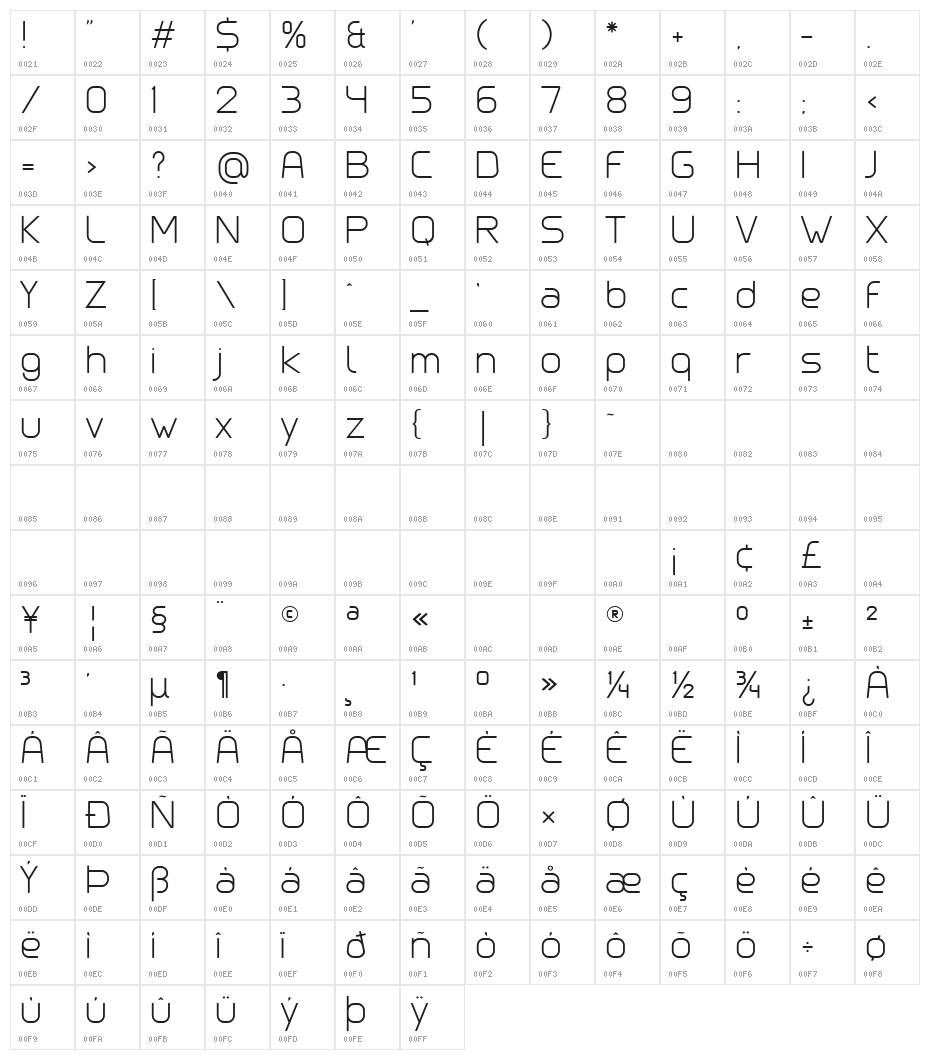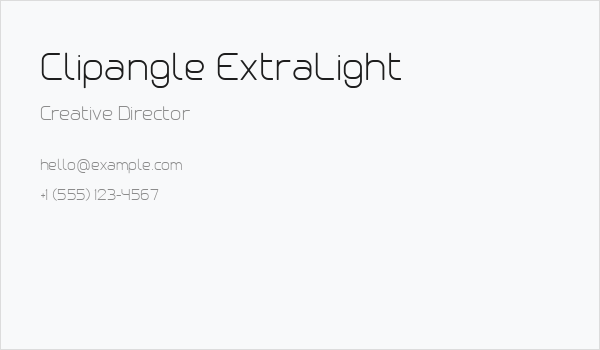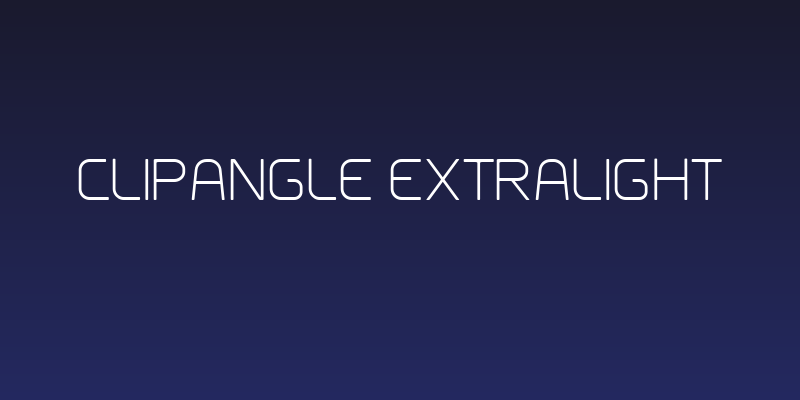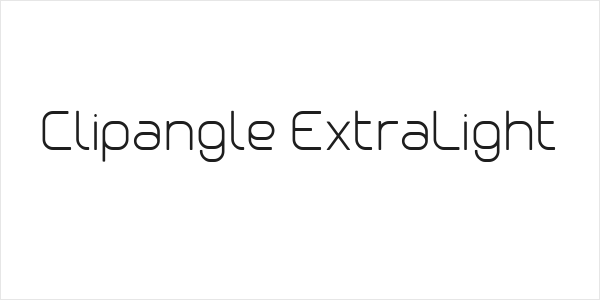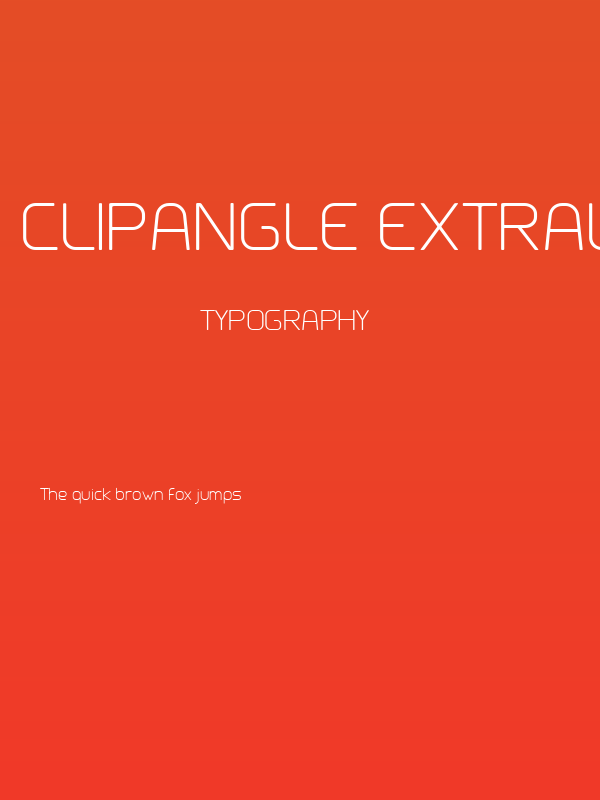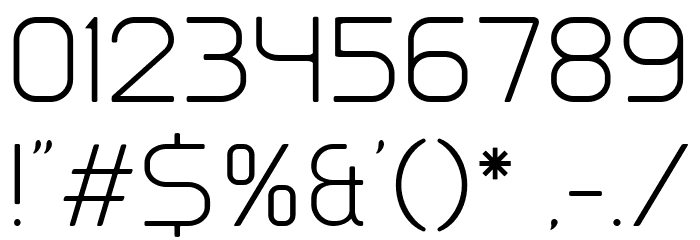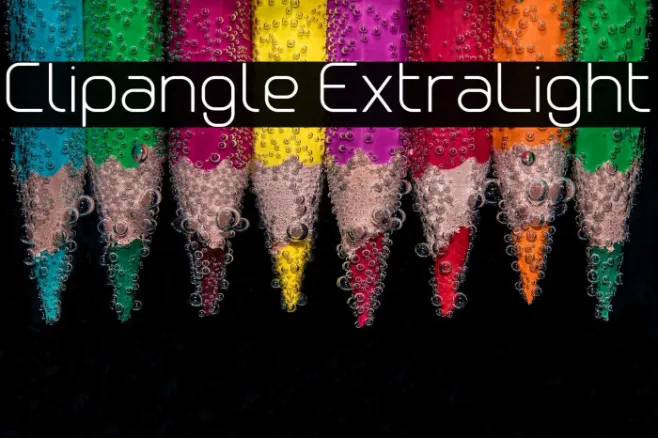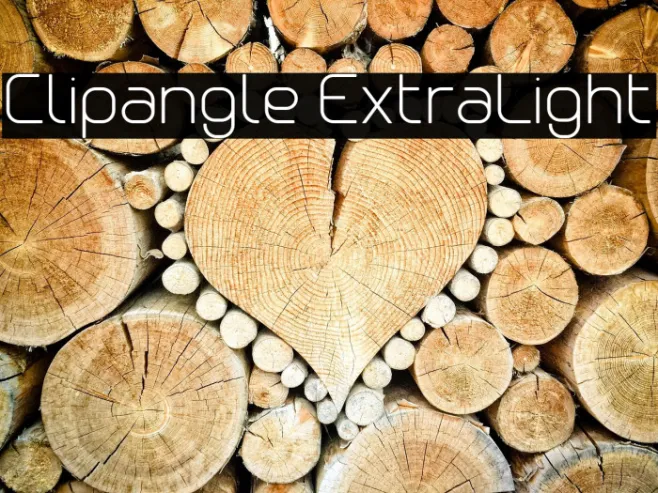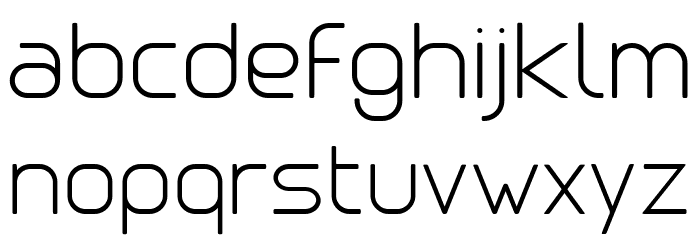
Clipangle ExtraLight Font
Clipangle ExtraLight Description
This font features a sleek, modern design with a geometric structure. The characters are constructed with clean lines and rounded edges, giving it a futuristic and minimalistic appearance. The uppercase and lowercase letters maintain a consistent style, with a uniform stroke width that adds to its contemporary feel. The numerals and special characters are designed to match the overall aesthetic, ensuring a cohesive look across all text elements. Its simplicity and clarity make it highly legible, even at smaller sizes, making it versatile for various applications.
| Proposed Projects | Ideal for tech branding, modern web design, and minimalist posters. |